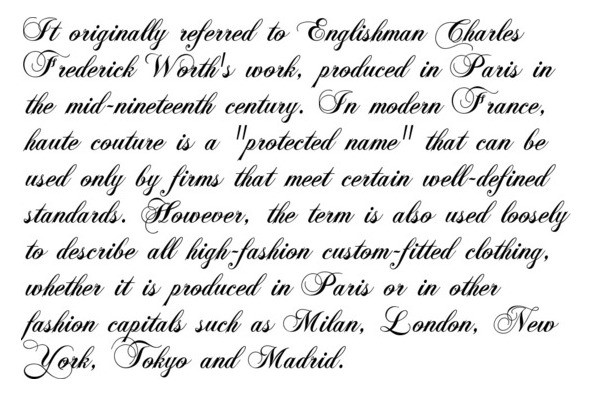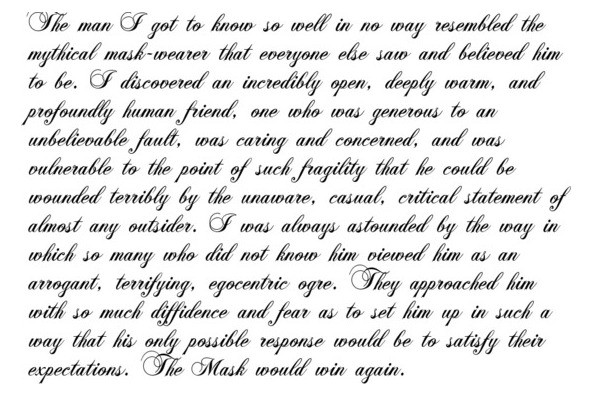
Polonaise
Designed by Phil Martin in 1977, Polonaise is an elegant script font release by URW. Contains language support for West, East, Turkish, Baltic, and Romanian.